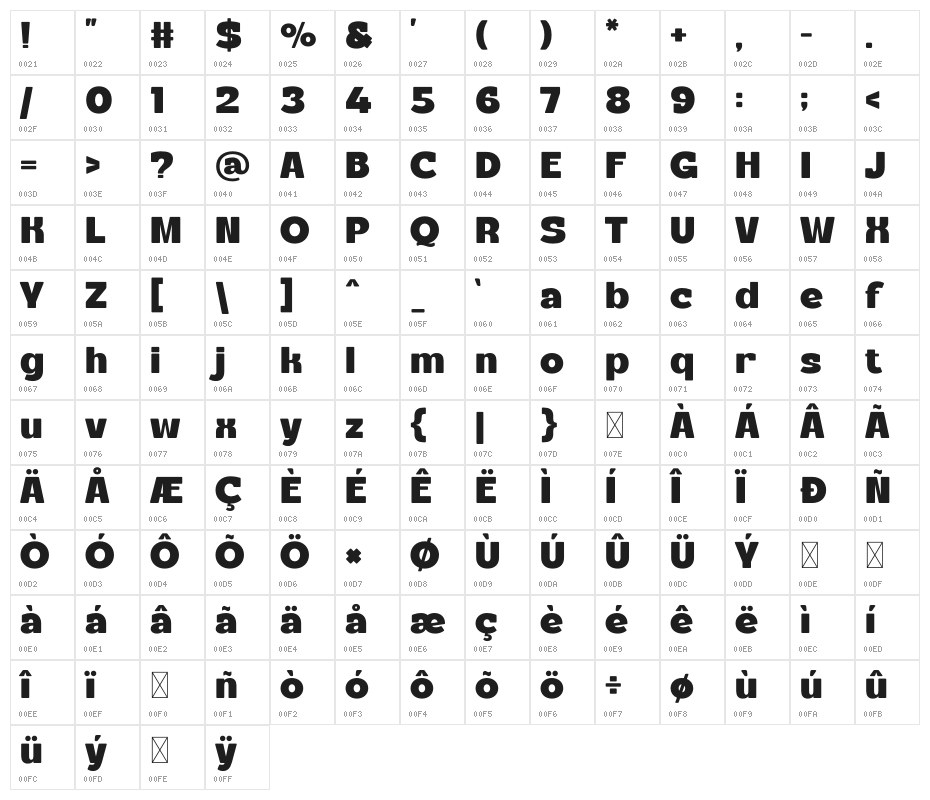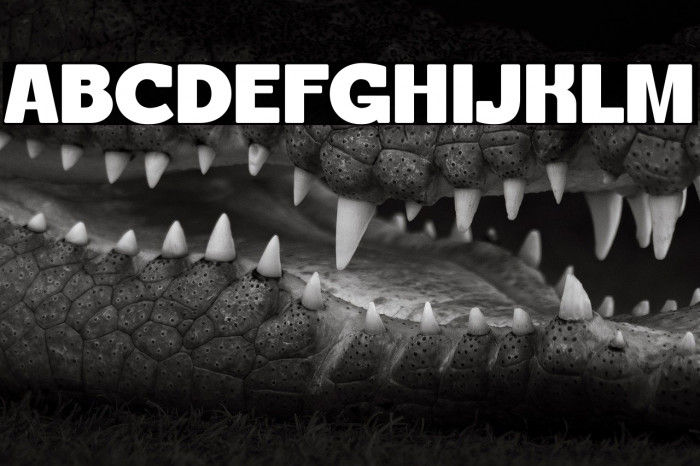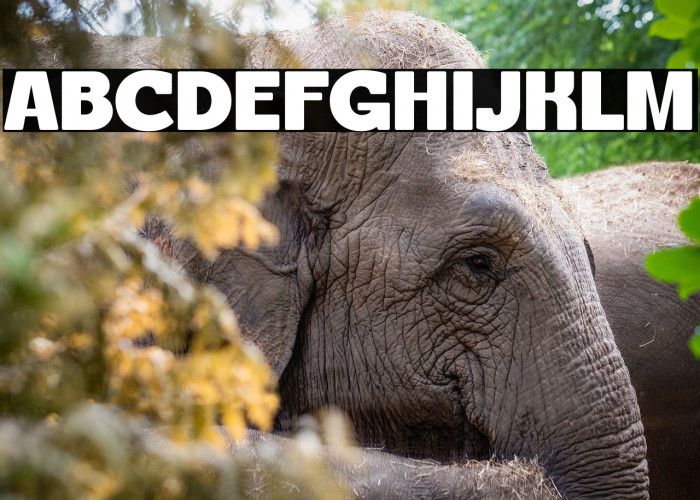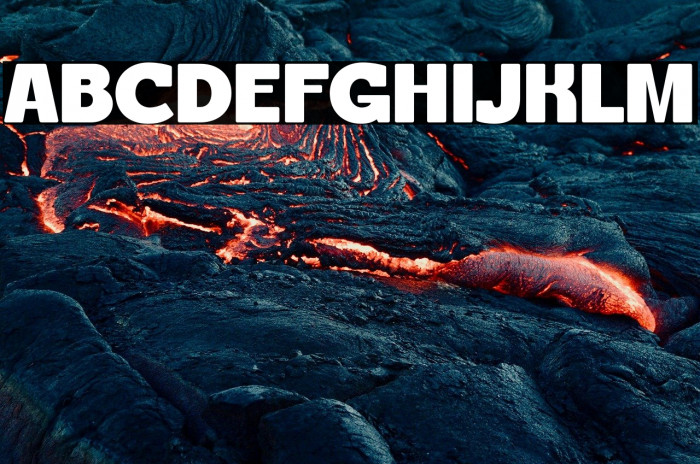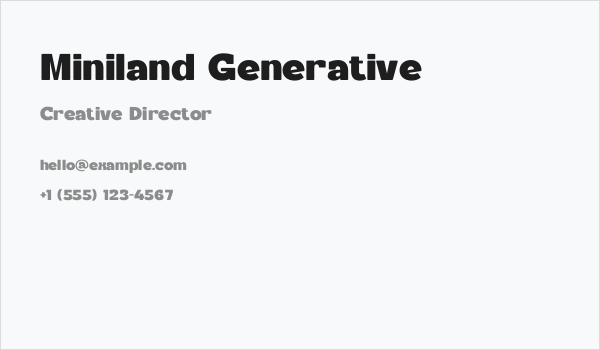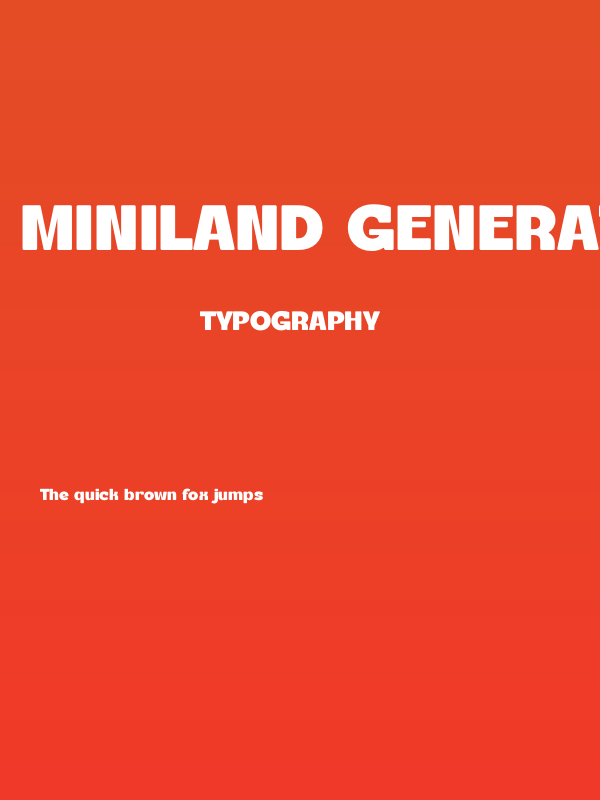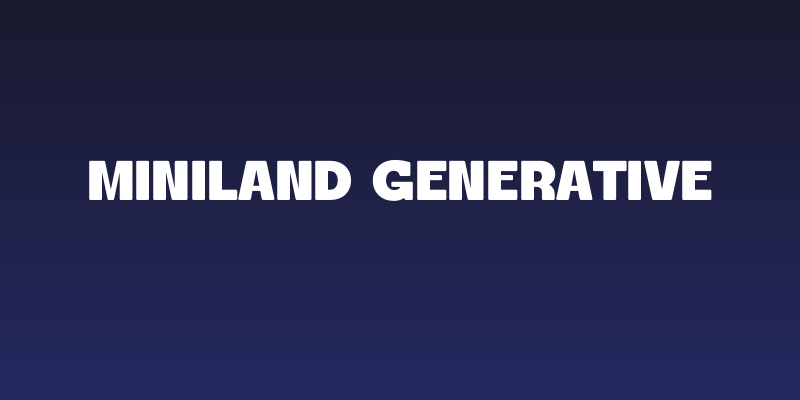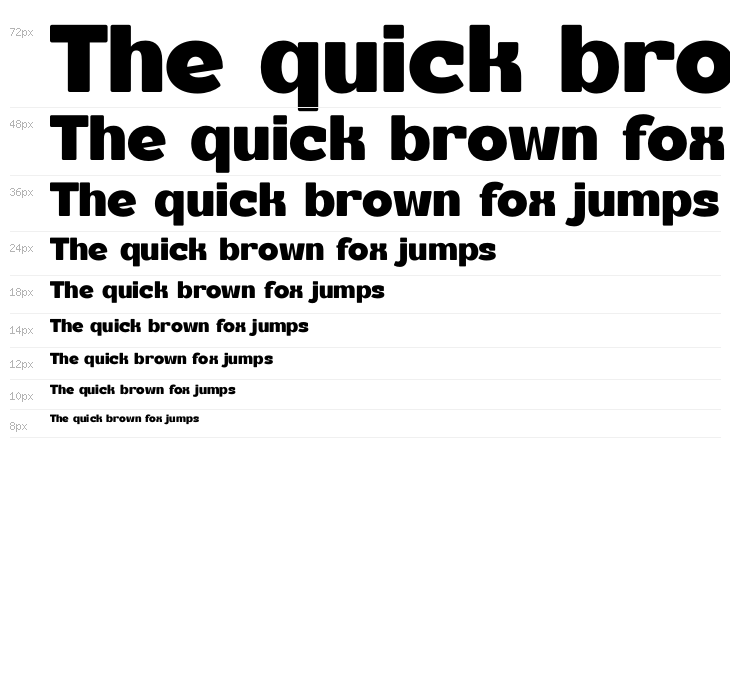
Miniland Generative Font
Miniland Generative Description
This font features bold, rounded characters with a strong presence, making it ideal for impactful designs. The uppercase and lowercase letters are consistent in their weight, providing a uniform appearance across different text sizes. The numerals are equally bold, ensuring they stand out in any context. Special characters are designed with the same boldness, maintaining the overall aesthetic. The font's style is modern and clean, suitable for a variety of applications where clarity and emphasis are required.
| Proposed Projects | Ideal for branding, headlines, posters, and any design requiring a strong visual impact. |